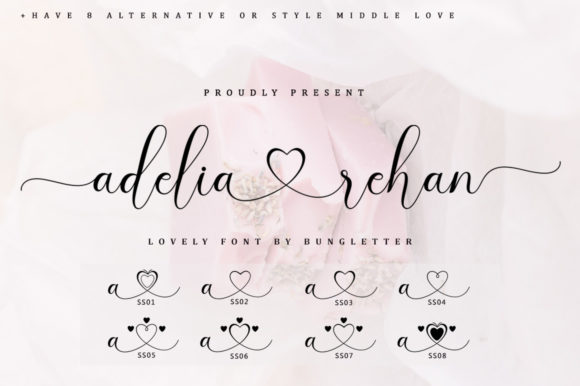
Introducing Adelia Rehan Font, the perfect font for your wedding invitations and other special occasions! Designed by bungreja123, this modern calligraphy script font features a beautiful style that connects in the middle of the heart, adding a touch of romance and elegance to your designs.
Adelia Rehan is a font family that exudes luxury and sophistication. Its high level of detail and PUA encoding allow for easy access to all of its amazing glyphs and ligatures. With Adelia Rehan, you can add a personal touch to your invitations, creating a unique and memorable experience for your guests.
But Adelia Rehan is not just limited to wedding invitations. Its versatility allows it to be used for a variety of projects, such as branding, logos, and social media graphics. This font family will elevate your designs to the next level, making them stand out from the rest.
Choosing Adelia Rehan means choosing quality, uniqueness, and style. With its beautiful and captivating style, it is sure to leave a lasting impression on anyone who sees it. So why settle for a generic font when you can have Adelia Rehan, the font that will truly make your designs shine?